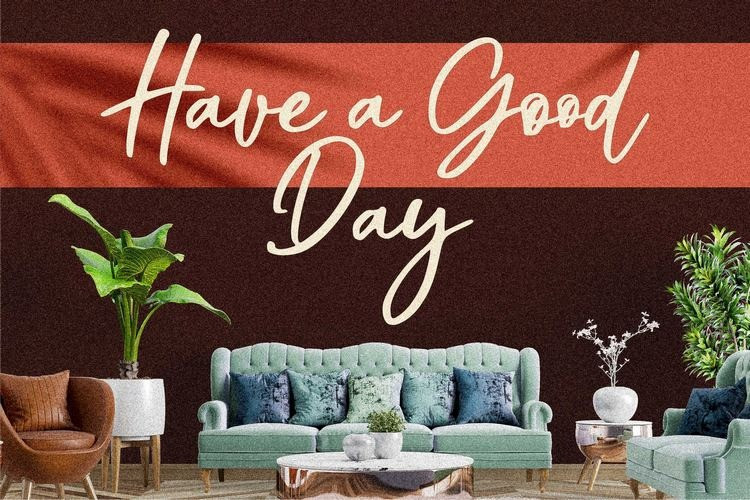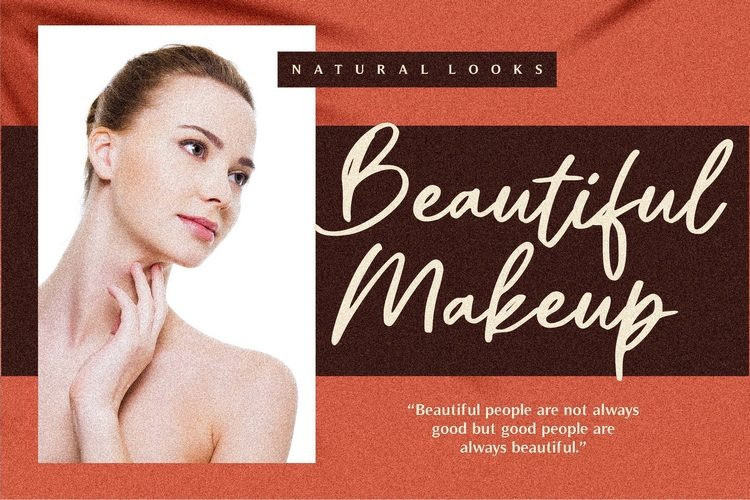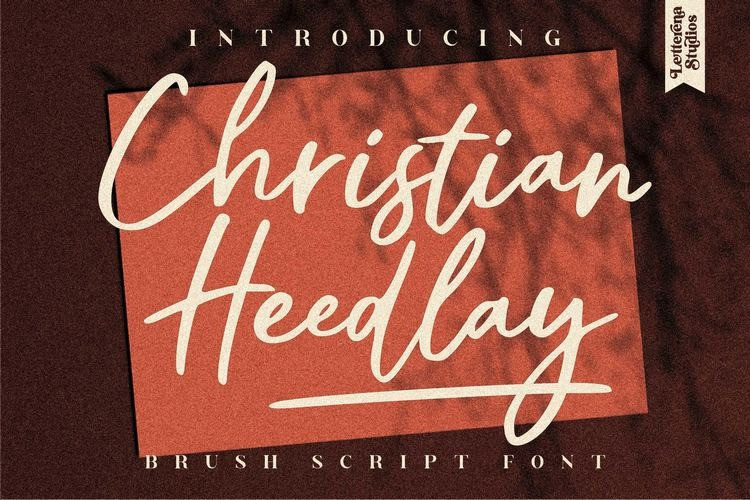
Christian Heedlay Script Font
Christian Heedlay is an elegant script font with a contemporary atmosphere and impeccable form, inspired by timeless classic calligraphy. Not too thin and not too thick, balanced and varied, this font was designed to enhance the beauty of your projects.